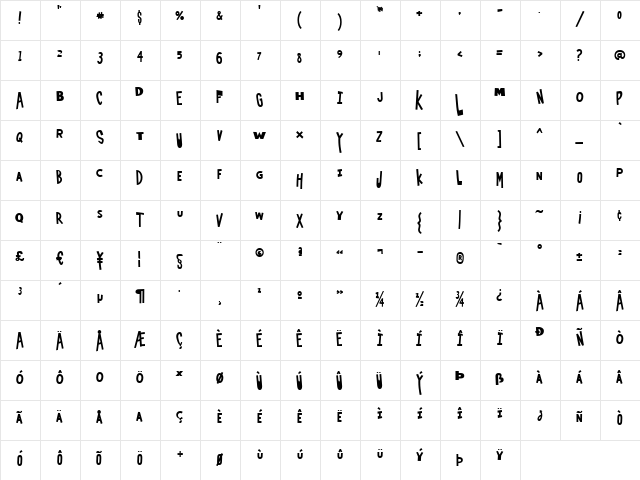
Wild Monkeys AOE Regular
Design Context for Wild Monkeys AOE Typeface
Wild Monkeys AOE is a composed and adaptable typeface that performs quietly and consistently across a wide range of design contexts.